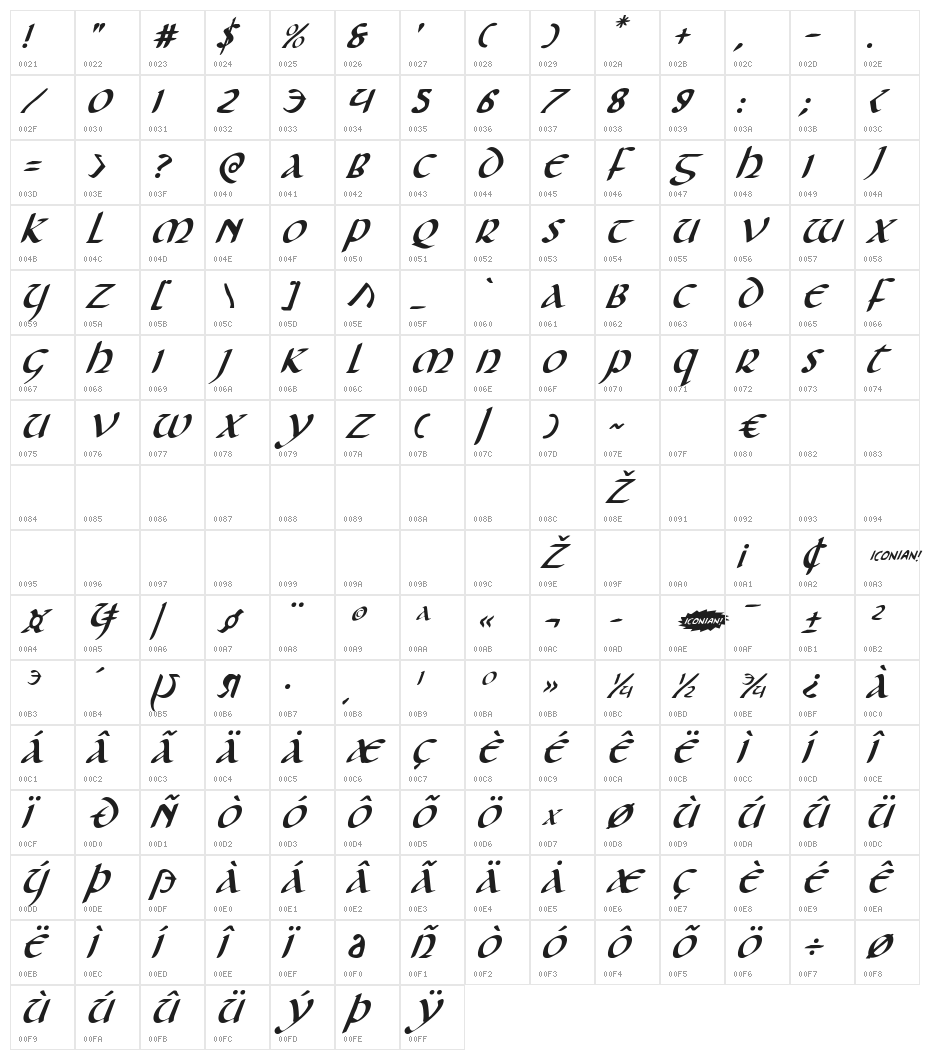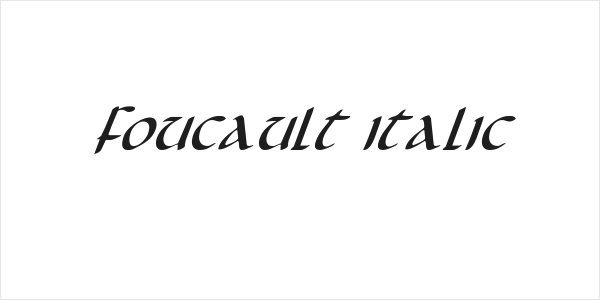
Foucault Italic Font
Foucault Italic Description
This font exhibits a dynamic and elegant style with a calligraphic influence. The characters are italicized, featuring sharp, angular strokes that convey a sense of movement and sophistication. The uppercase letters are bold and commanding, while the lowercase letters maintain a consistent flow, enhancing readability. The numerals are distinct and well-proportioned, complementing the overall aesthetic. Special characters are designed with the same attention to detail, ensuring versatility across various applications. This font is suitable for projects that require a touch of elegance and flair.
| Use Case | Logos, Invitations, Editorial Design |
| Proposed Projects | Ideal for wedding invitations, luxury branding, editorial design, and artistic posters. |